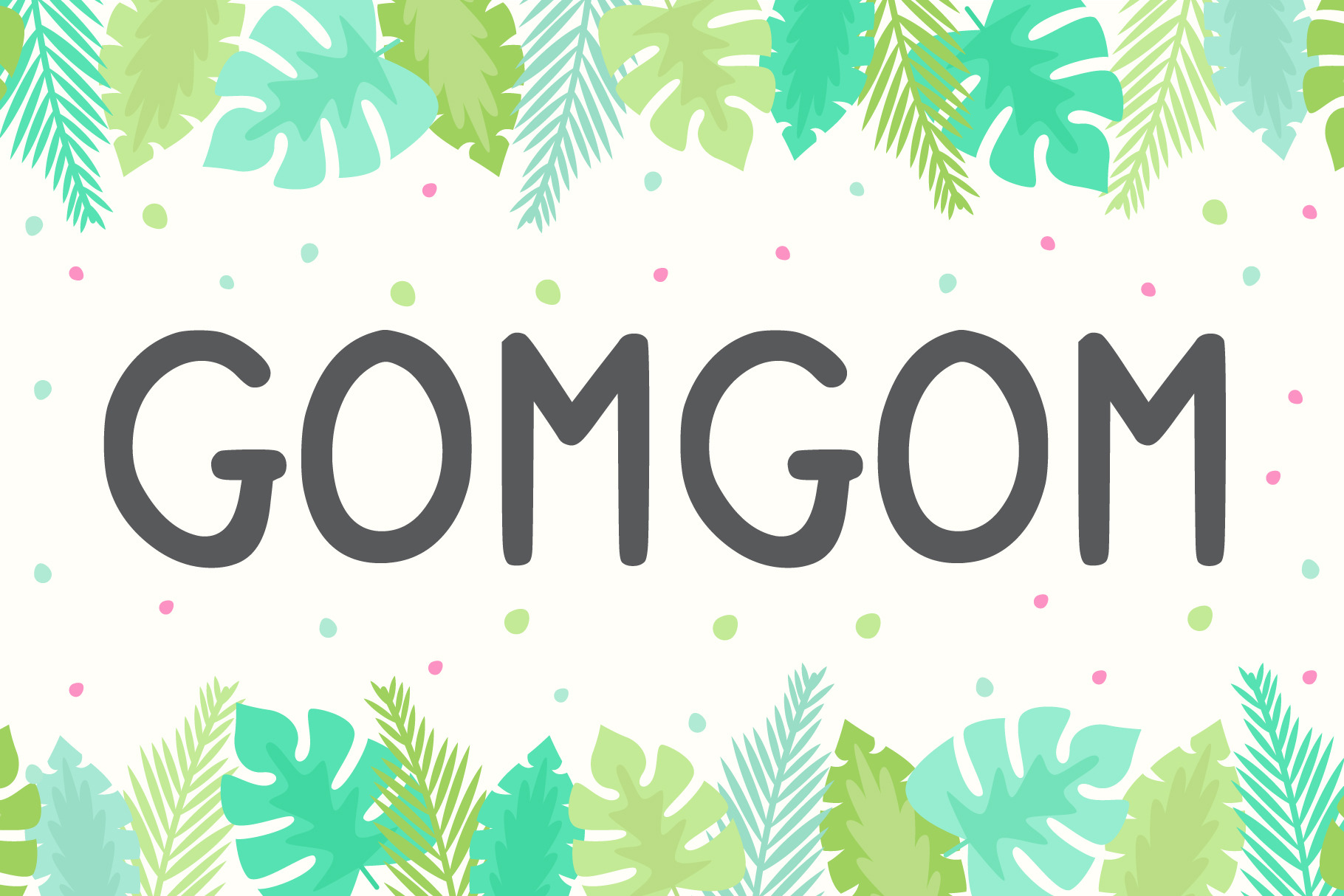
Gomgom | Handwriting Font
Gomgom Handwritten Font Handwritten style fonts, suitable for use with children's themed designs. Perfect for children's story book letter, branding projects, logo, wedding designs, social media posts, advertisements, product packaging, product designs, label, photography, watermark, invitation, stationery and any projects that need handwriting taste.